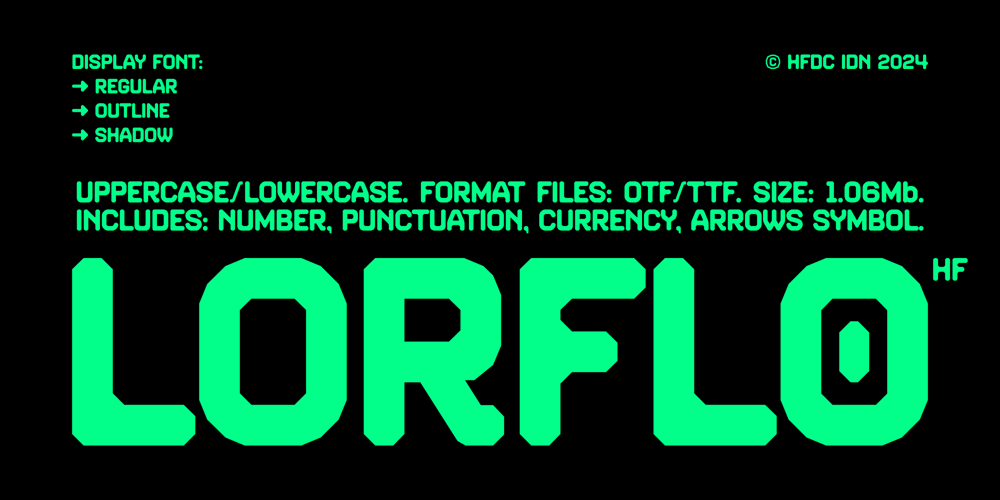
HF Lorflo
HF Lorflo font
HF Lorflo Font Family was designed by Holis Majid and published by Holis.Mjd. HF Lorflo contains 3 styles and family package options. HF Lorflo is a geometric font that looks rounded at each corner, a font that is suitable for you to use as headlines, logos, content, etc. This font has 3 styles Regular, Outline, and Shadow with several alternates and ligatures.Features: Upercase and lowercase Number Punctuation Currencies Arrows Alternates and ligatures Multilingual Support